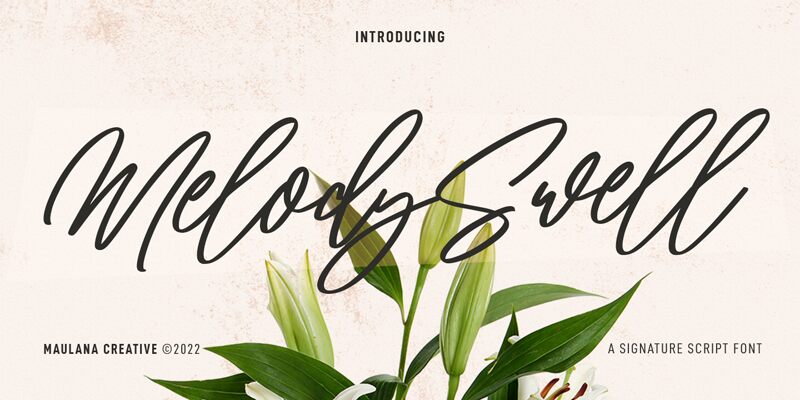
Melody Swell Free Regular
Melody Swell is the perfect handwritten signature font for any project that requires a touch of elegance and sophistication. Created by Maulana Creative, this light-weighted, semi-condensed typeface boasts fluid strokes and curves that capture the essence of a personalized handwritten signature. Its refined design makes it ideal for use in wedding invitations, greeting cards, branding materials, and social media posts. Whether you're looking to add a touch of glamour to your print or digital media projects, Melody Swell is sure to deliver with its timeless charm and graceful appeal.